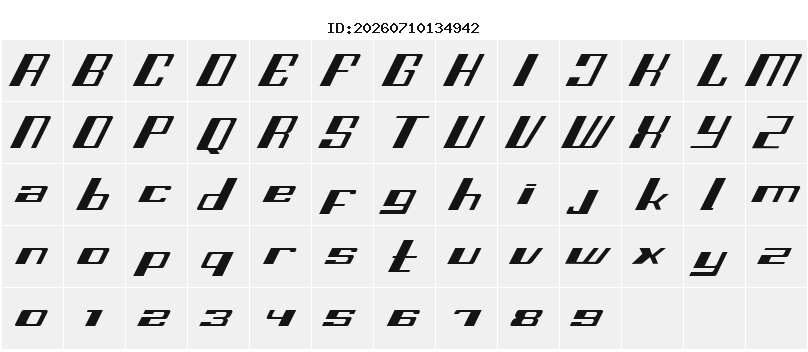
• Font Name: Fast SS
• Full Font Name: Fast SS
About Fast SS.ttf
Fast SS.ttf is a modern, elegant sans-serif font designed for ultimate readability and visual harmony. Perfect for branding, headlines, web design, and print materials.